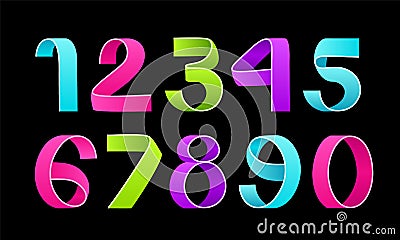
Vector Of Paper Folding Numbers. Color Ribbon Script Font.
Vector of paper folding numbers. Color Ribbon script font. Vector of modern stylized paper font. Alphabet letters. 3d number set. Elements design. Celebration logo